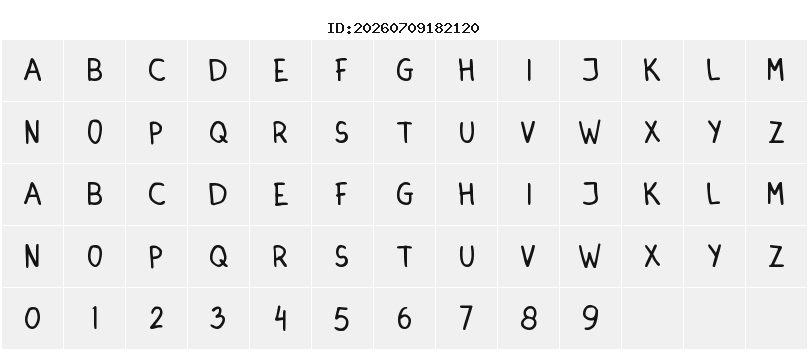
DINSKI CASUAL HANDWRITING Preview
• Font Name: DINSKI CASUAL HANDWRITING
• Full Font Name: DINSKI CASUAL HANDWRITING
• Version: Version 1.00 November 30, 2008, initial release
About DINSKI CASUAL HANDWRITING.ttf
DINSKI CASUAL HANDWRITING.ttf is a modern, elegant sans-serif font designed for ultimate readability and visual harmony. Perfect for branding, headlines, web design, and print materials.